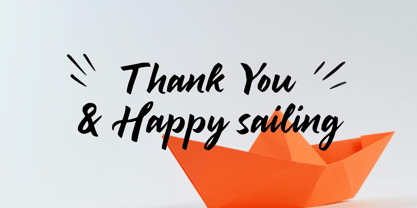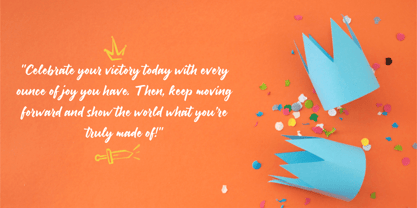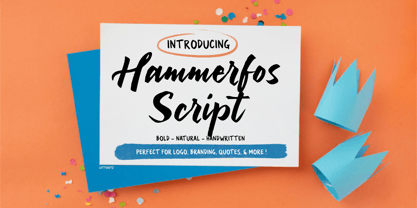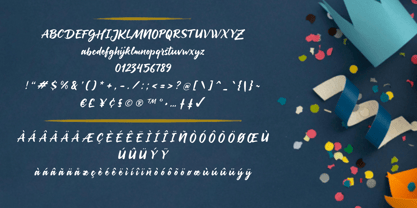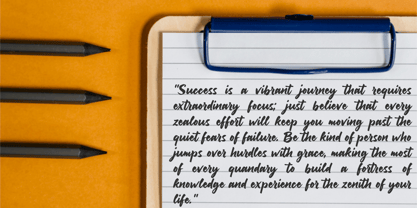
Hammerfos
by Letterytz CalliType
The Hammerfos Font Family was designed by Wahyu Eka Prasetya, Dian Angga Marytama and published by Letterytz CalliType. Hammerfos contains 1 styles. More about this family
Hammerfos Script – Authentic Calligraphy Brush Font
Hammerfos Script is an elegant and soulful script font, designed to bring an authentic and artistic calligraphic touch to your creative works. Crafted with smooth brush textures, this font boasts a high-end yet natural feel, making it the perfect choice for premium branding, wedding invitations, typographic quotes, and product packaging.
With its flowing strokes and realistic brush details, Hammerfos Script brings the majesty of the fjords and mountains into your digital projects. Each curve is precisely designed to ensure excellent readability while maintaining a bold, handcrafted aesthetic that feels both welcoming and sophisticated.
✔️ Authentic hand-brushed calligraphy style
✔️ Natural and elegant letter connections
✔️ Perfect for logos, high-end branding, and apparel design
✔️ Multilingual support